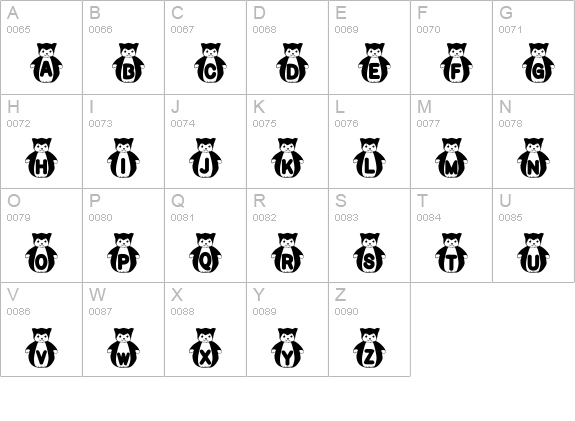
rmfatkatt Font Details
The rmfatkatt font is a unique and eye-catching typeface that combines modern aesthetics with a playful touch. Its bold and stylish design is sure to make your projects stand out and captivate the attention of your audience. This versatile font is perfect for a wide range of design projects, from branding and advertising to social media graphics and more. What makes the rmfatkatt font even more appealing is that it is available for free download at FontsMarket.com. You can easily access this fantastic font and enhance your designs without any cost. Don't miss out on this opportunity to elevate your creativity and make a lasting impression with the rmfatkatt font. Download it today and let your imagination run wild!